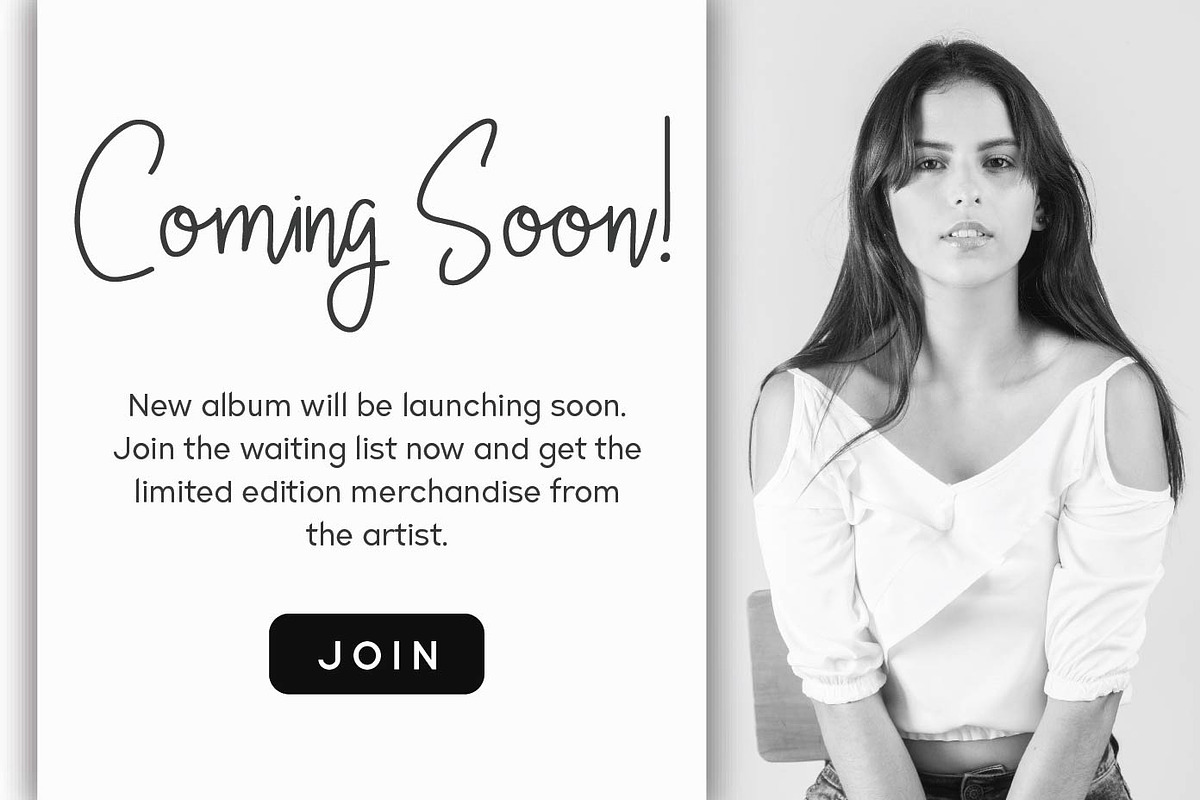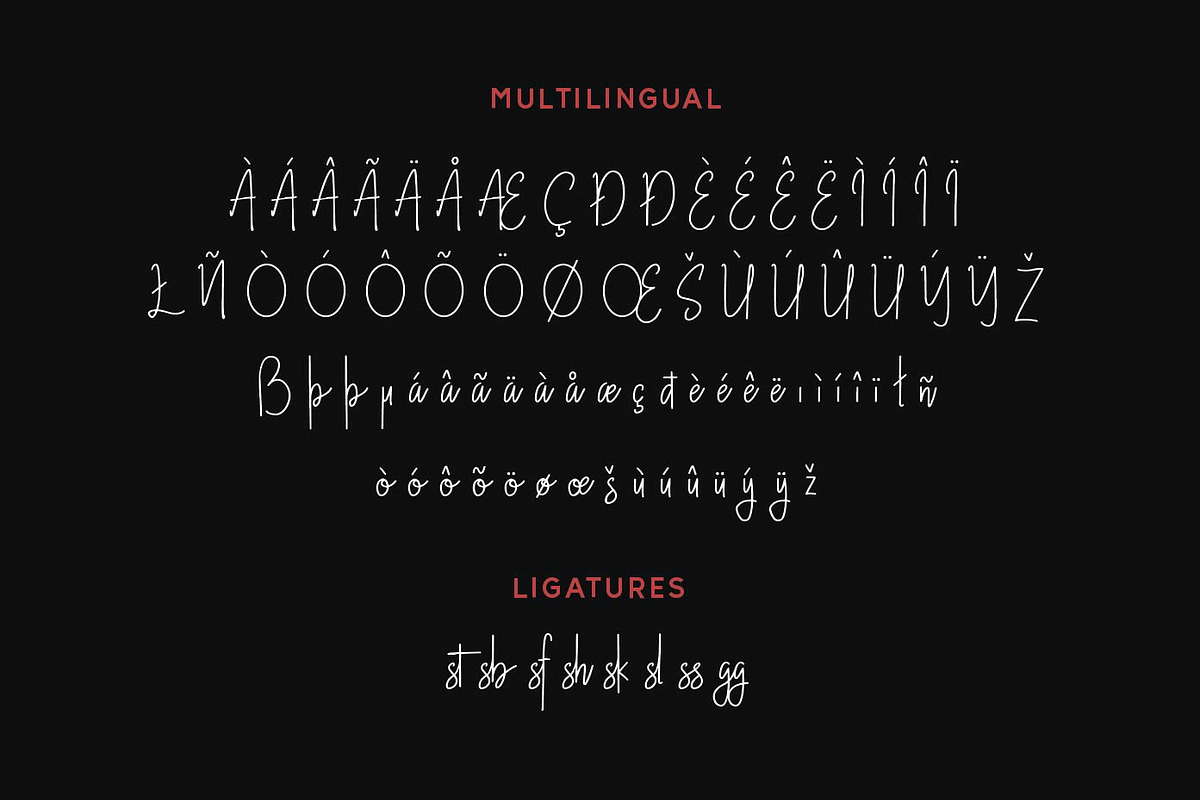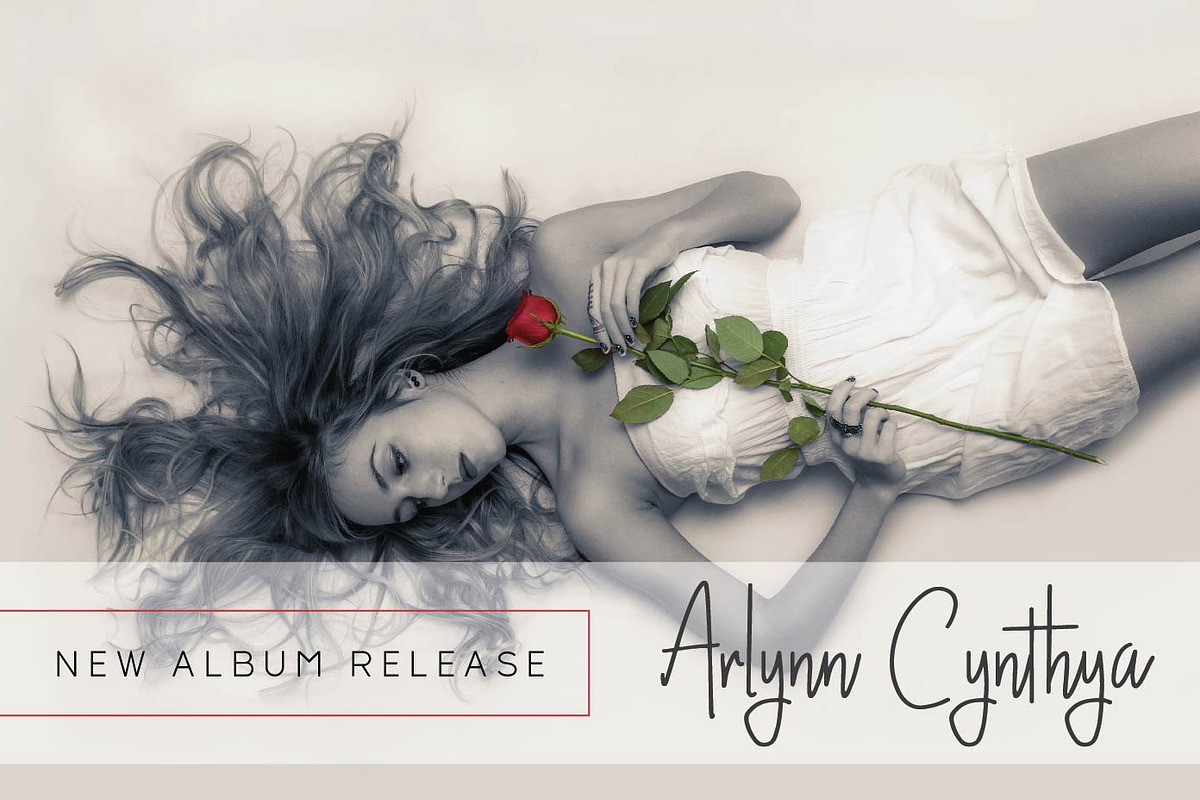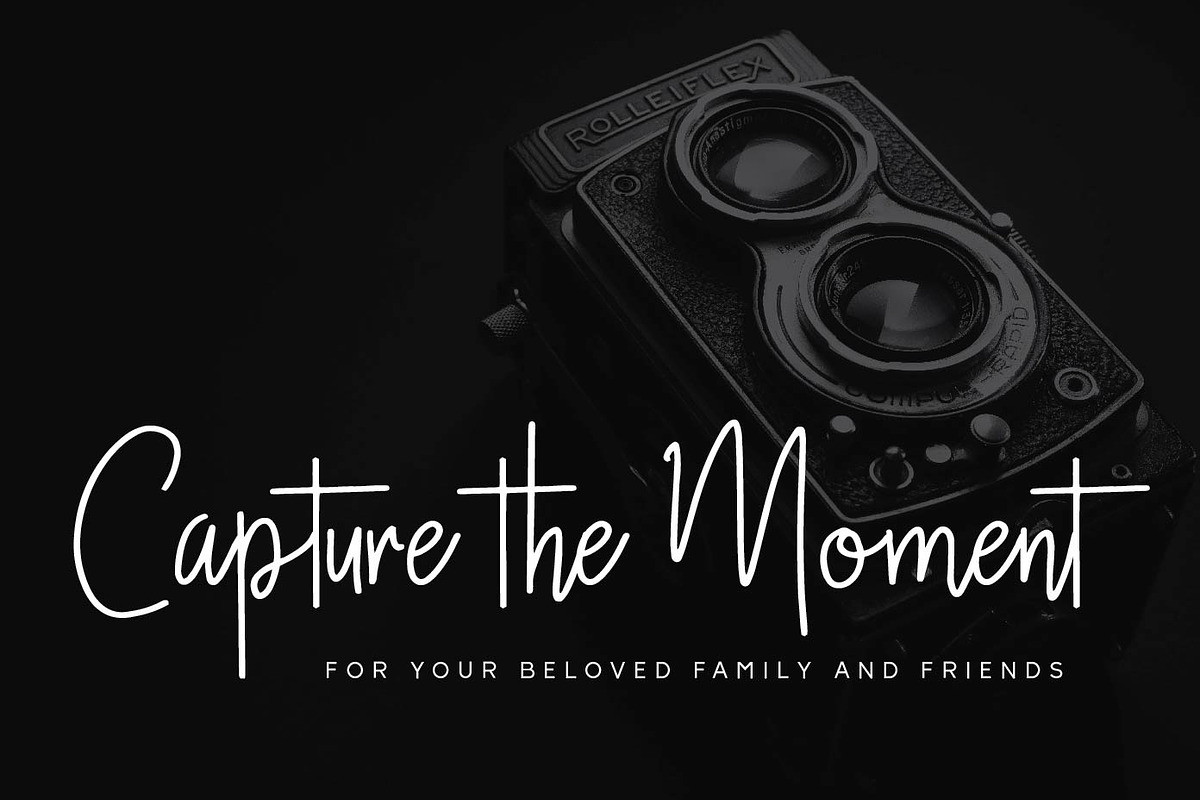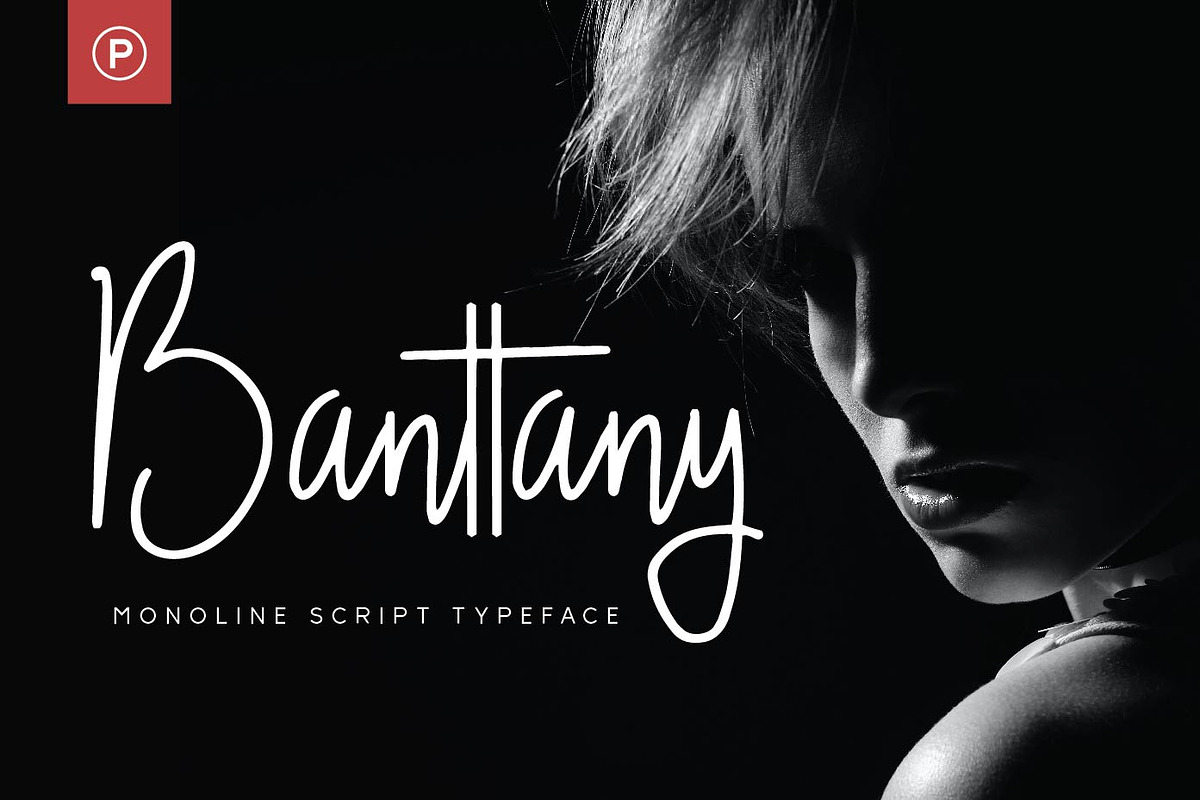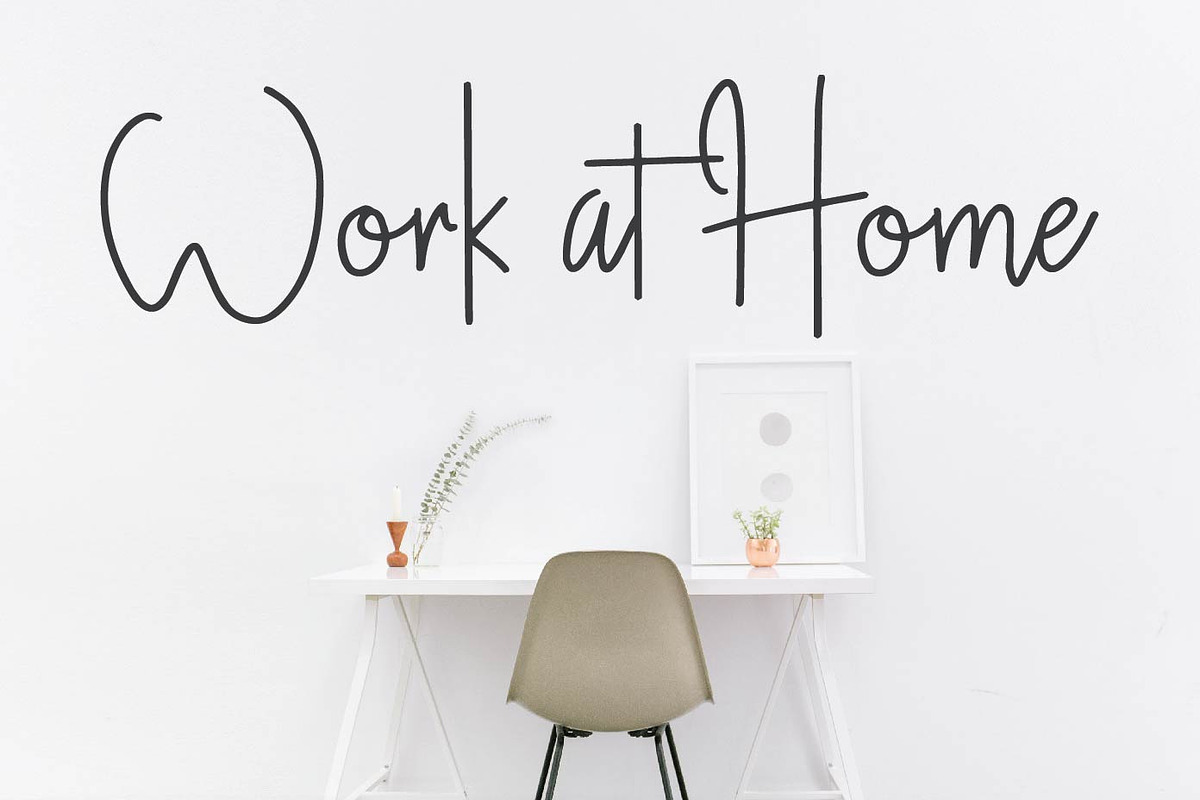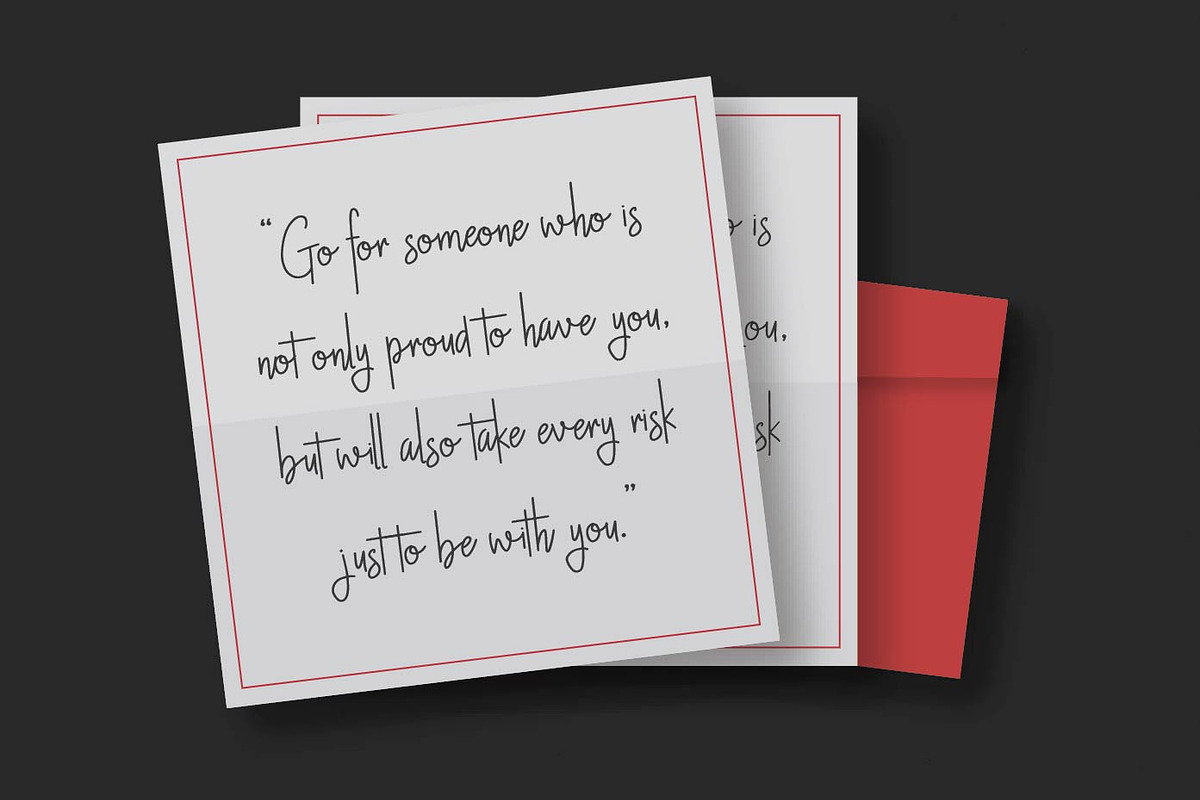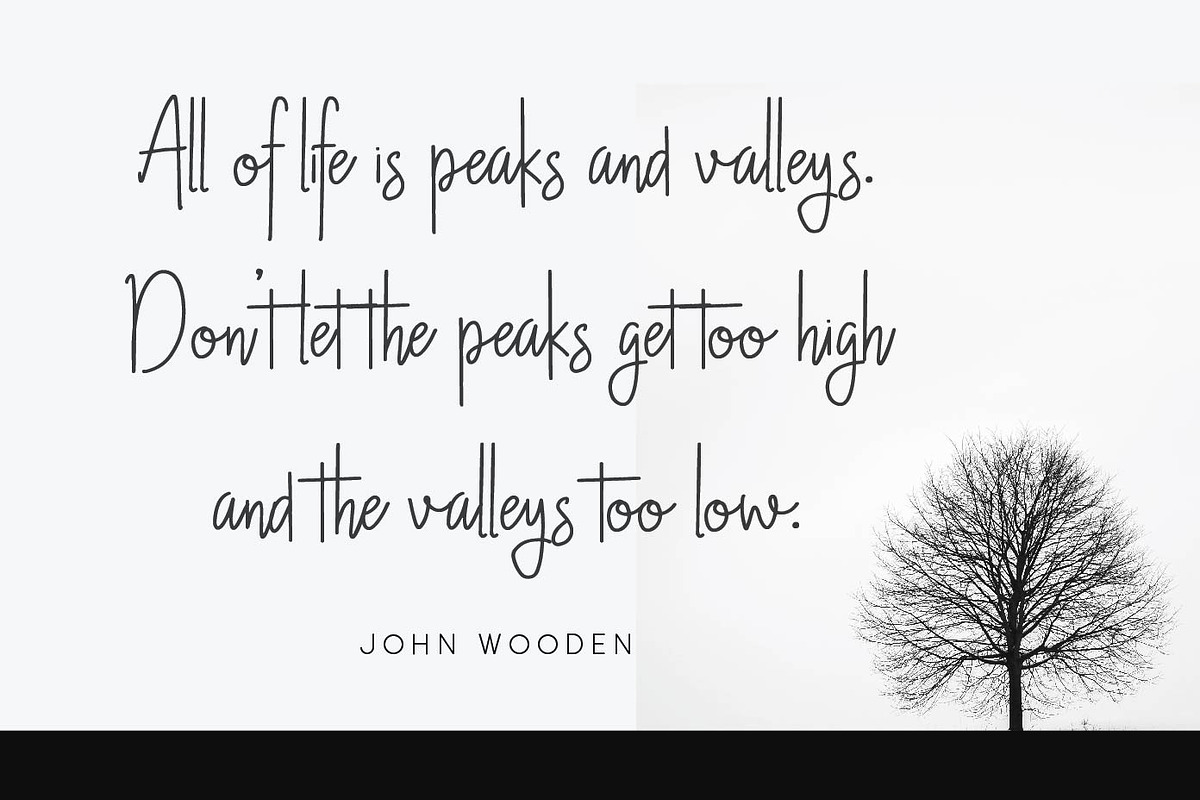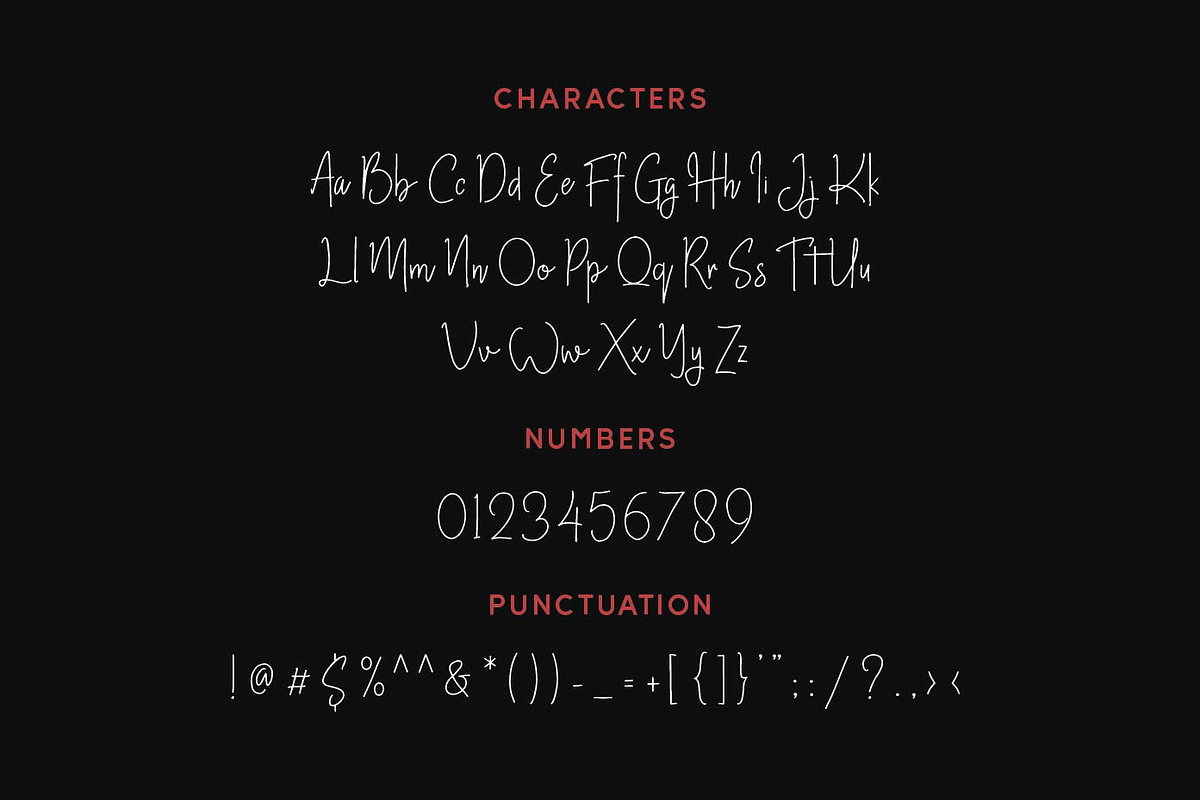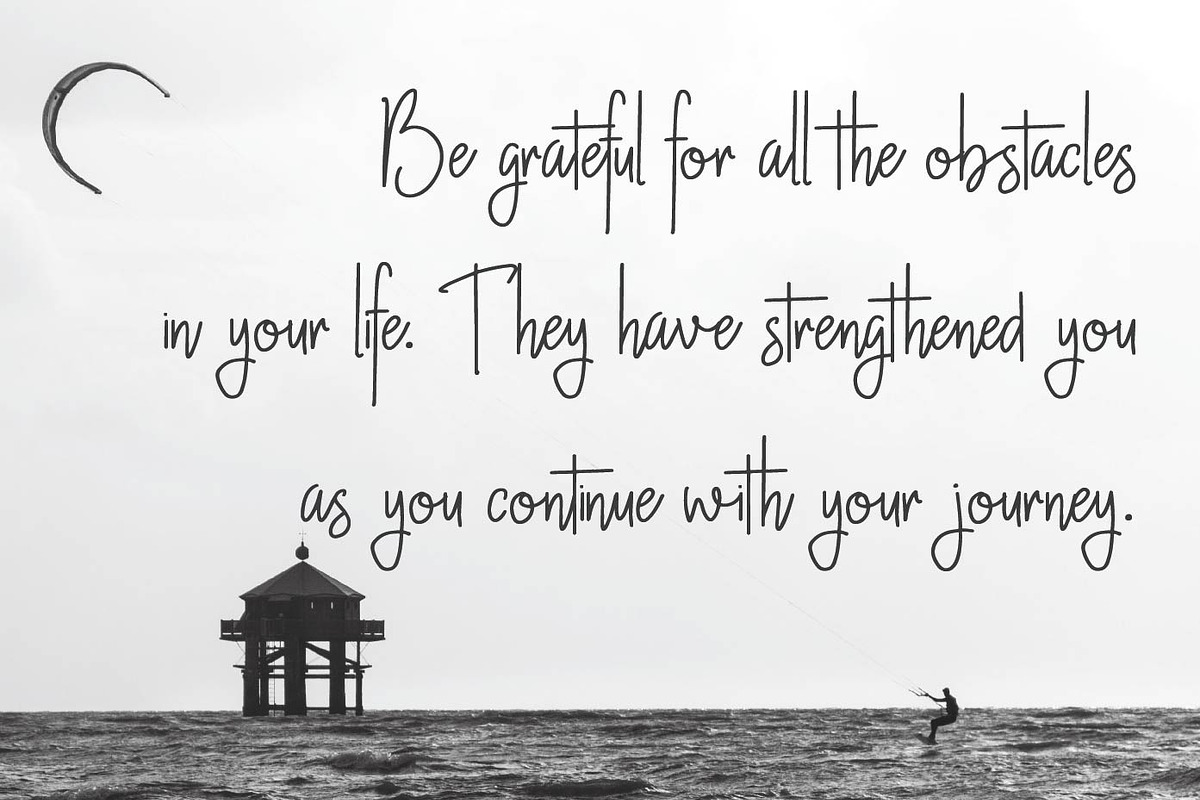
Banttany
Banttany is a handwritten monoline signature-style script with luxurious shapes in every glyphs.
Banttany is perfect for branding projects, logo, wedding designs, social media posts, advertisements, product packaging, product designs, label, photography, watermark, invitation, stationery and any projects that need handwriting taste.